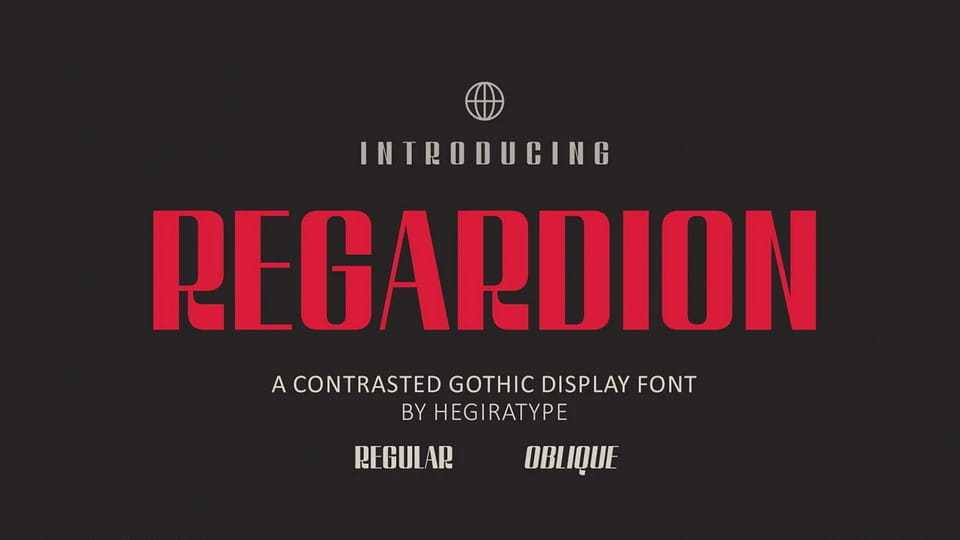
Download Regardion font, a high-contrast Gothic display typeface that merges the bold spirit of retro aesthetics with a sharp sense of futurism.
Designer: Hegiratype